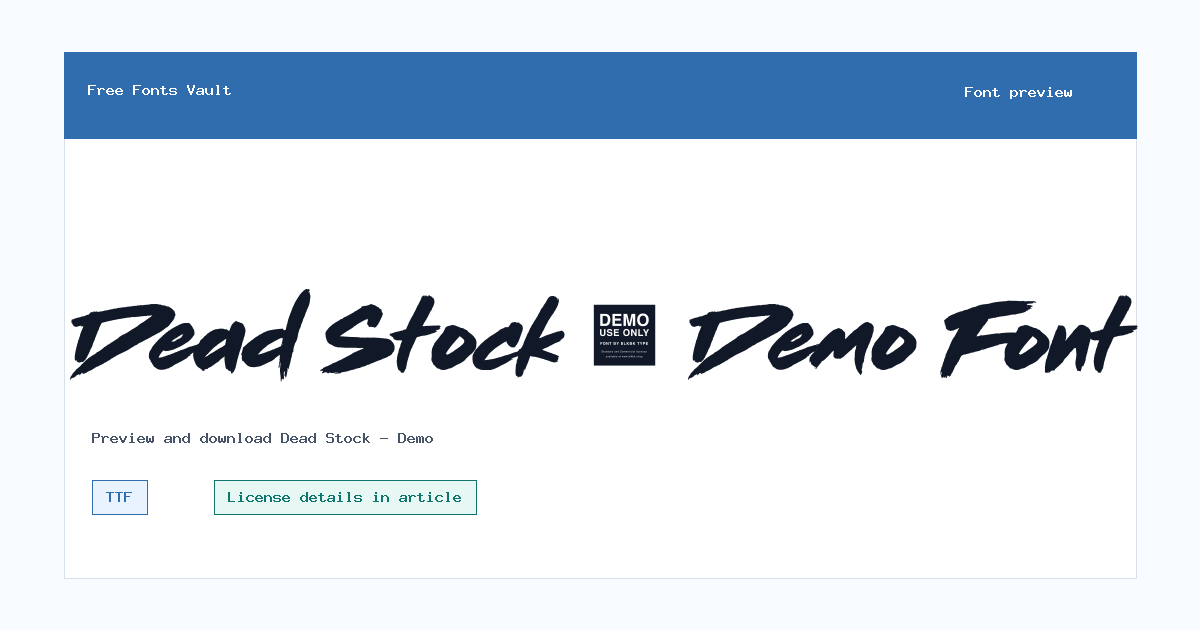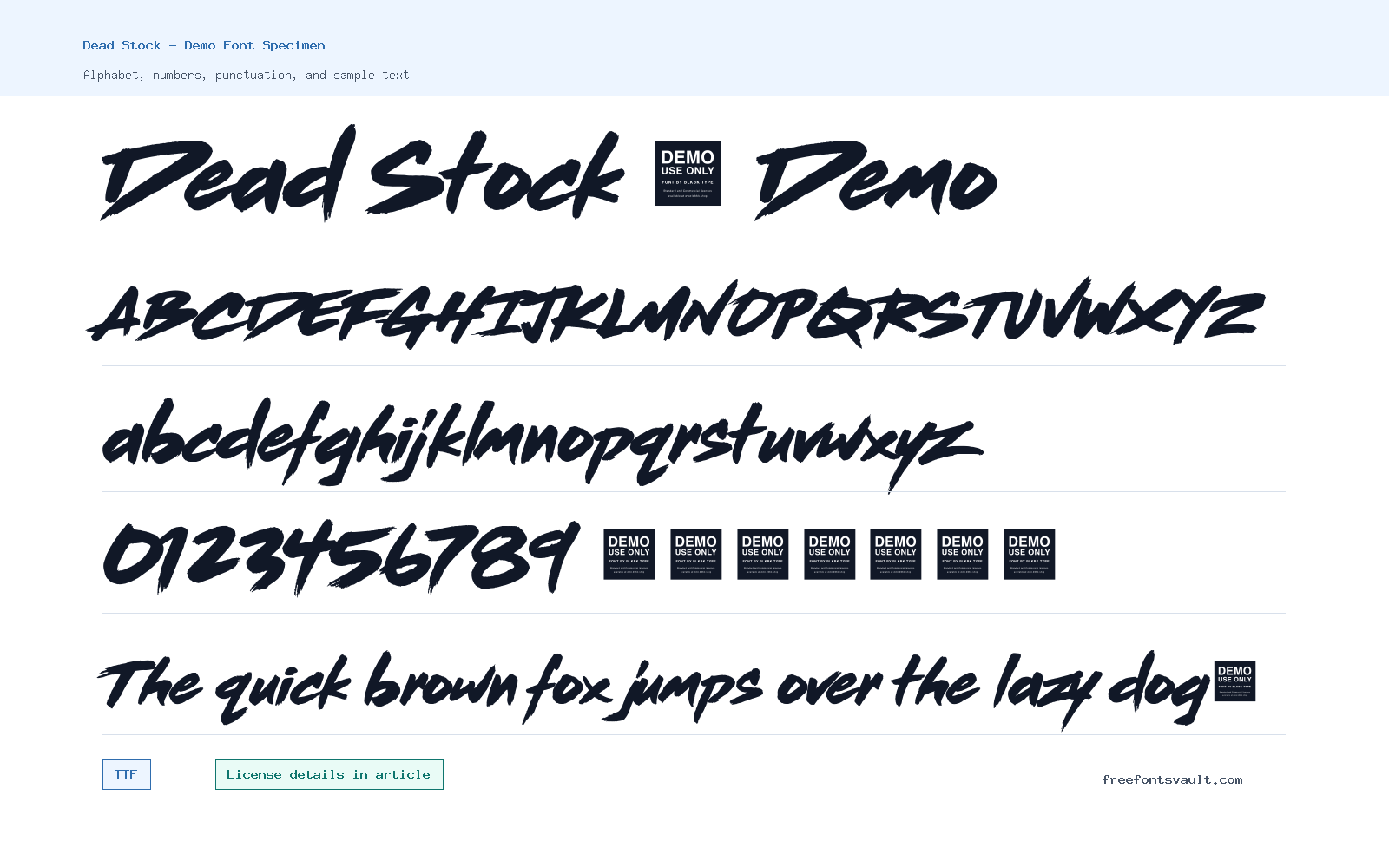
Dead Stock - Demo
Dead Stock – Demo font.
Dead Stock – Demo is a bold brush-style display font with fast strokes, rough edges, and a strong handwritten feel. It is best suited to short words, titles, and artwork where energy matters more than quiet readability.
About Dead Stock – Demo
Dead Stock – Demo has a slanted marker-brush look, with heavy black strokes and dry, uneven edges. The capitals feel wide and aggressive, while the lowercase keeps the same quick hand-drawn motion. It is not a neutral text font; it is made for display settings where the letters can take up space and become part of the visual style.
Use it for posters, music graphics, streetwear-style layouts, stickers, headers, social images, and short logo mockups. Keep the text short and test it at the exact size you plan to use, because the rough strokes and tight movement can become harder to read in small captions or long paragraphs. Pair it with a simple sans serif for body text so the brush lettering stays clear and intentional.
- Rough stroke texture, slanted letterforms, and strong uppercase impact
- Posters, album-style artwork, stickers, and merch mockups
- Short headlines, social graphics, branding drafts, and display text
Dead Stock – Demo is credited to BLKBK, with BLKBK also listed as the foundry.
For the cleanest result, use Dead Stock – Demo in large sizes and short phrases. Avoid long paragraphs, small labels, or dense layouts. Try all-caps and mixed-case previews, then adjust spacing if letters overlap or feel too tight. Dead Stock – Demo is most convincing when the artwork leaves room for the brush texture. Try it over plain backgrounds first, then add texture or imagery only after the words remain readable. For apparel graphics, album covers, and thumbnails, keep the phrase short and let the rough stroke edges carry the mood. If the preview feels too dense, increase tracking slightly or switch supporting text to a simple companion font.
What kind of font is Dead Stock – Demo?
It is a brush-style display font with rough, energetic strokes. It works best for short headlines and graphic text rather than body copy.